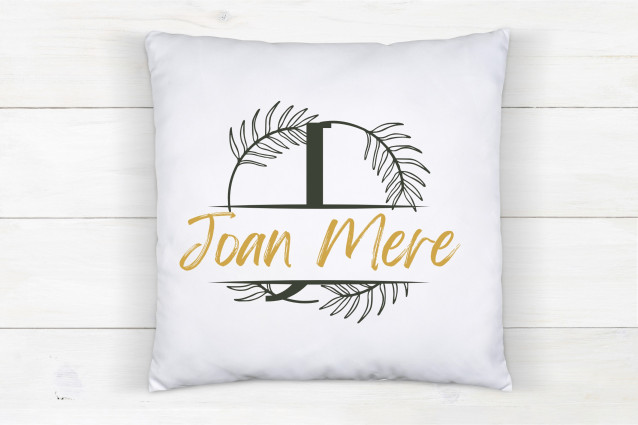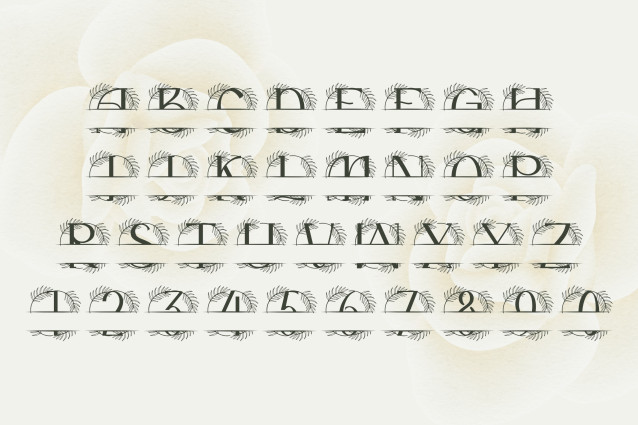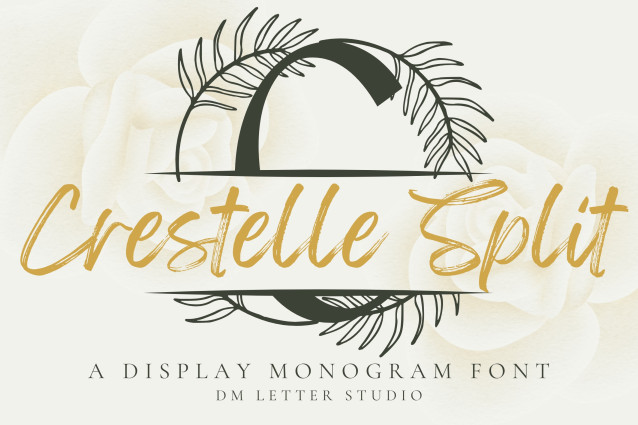
Crestelle Split Monogram Font
Crestelle Split Monogram Font is an elegant serif split font designed for personalization and timeless style. Each uppercase letter features refined serif detailing with a clean horizontal split, giving you space to insert names, dates, or custom words. Combined with subtle botanical-inspired accents, this font strikes the perfect balance between luxury and creativity.
This typeface is perfect for projects that require both sophistication and functionality. The split monogram design makes it easy to customize for wedding invitations, event signage, boutique branding, packaging, Cricut/Silhouette crafts, and personalized gifts. Its refined serif base ensures clarity and professionalism, while the decorative elements add a graceful touch.
By combining classic serif elegance with a customizable split format, Crestelle Split Monogram empowers you to create monograms that feel both personal and upscale. Whether you’re crafting wedding stationery, luxury product packaging, or personalized keepsakes, this font adds a professional finish with an organic twist.